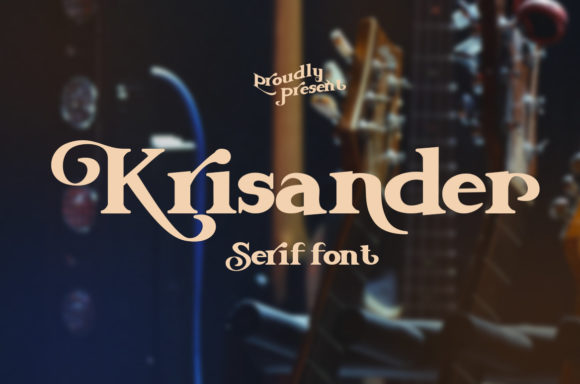
**Introducing Krisander: The Serif Font That Will Captivate Your Mobile Designs**
In the realm of mobile design, where every pixel counts, typography plays a pivotal role. Introducing Krisander, an exquisite serif font crafted by the masters at Analogous, designed to elevate your mobile creations to new heights.
With its graceful curves and meticulous attention to detail, Krisander exudes an air of sophistication that will leave a lasting impression on your users. Its neat and simple style makes it the perfect choice for a wide range of designs, from eye-catching headlines to elegant body text.
Whether you're crafting a sleek mobile app, a captivating website, or a stunning social media campaign, Krisander has the versatility to match your every need. Its clean lines and legible forms ensure optimal readability, even on the smallest of screens.
Unleash the power of Krisander and watch as your mobile designs transform into masterpieces of typography. Its timeless beauty and undeniable charm will captivate your users, leaving them with a positive and memorable experience.
So why settle for ordinary fonts when you can have extraordinary? Embrace the allure of Krisander today and let your mobile creations shine brighter than ever before.